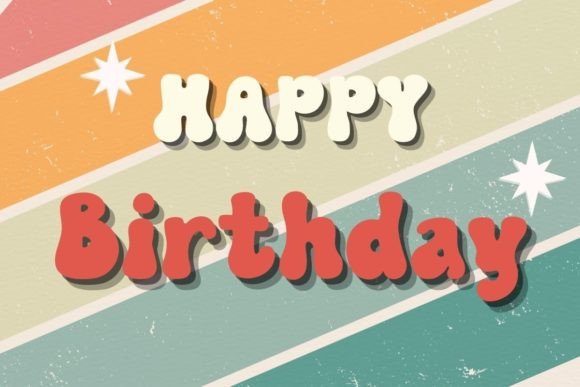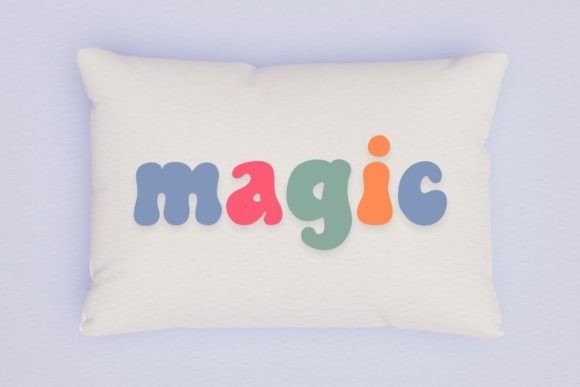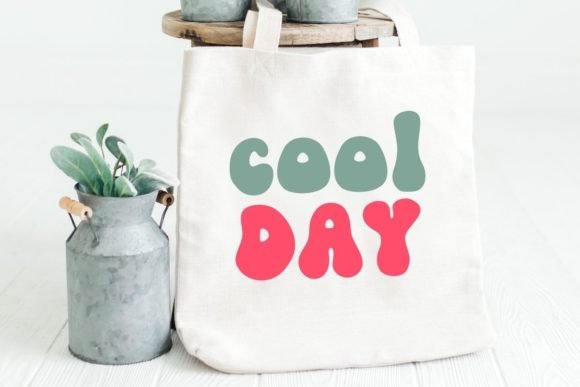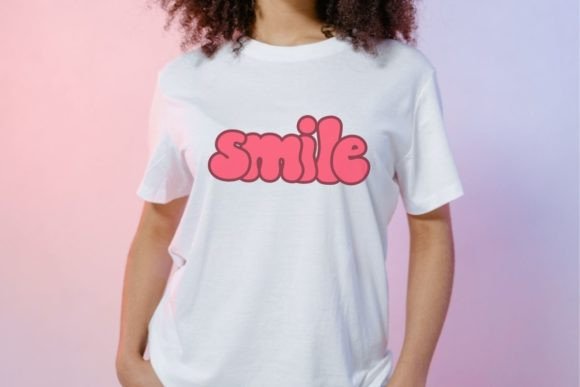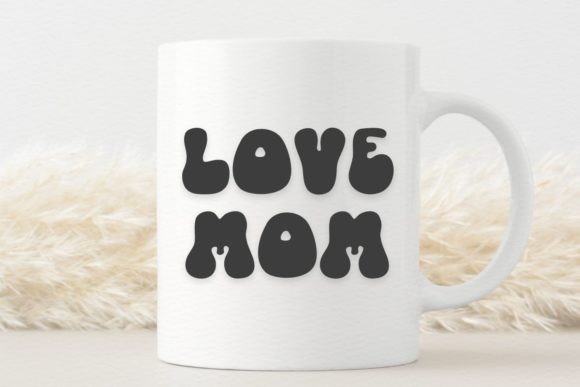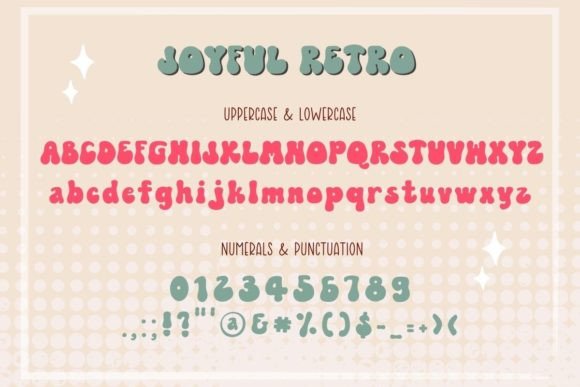
Get Ready to Groove with the Joyful Retro Font!
You know that feeling when you’re brainstorming ideas for a new design project and suddenly, the perfect font pops into your mind? That’s exactly what happens when you discover the Joyful Retro Font. This adorable, retro-inspired font is more than just a style – it’s a mood. It’s a vibe that says, “Hey, let’s have some fun!”
Whether you’re creating banners, social media posts, or even mugs and cards, the Joyful Retro Font is the perfect companion for your design journey. Its playful, carefree spirit will bring a smile to your face and your clients’ faces, making it a valuable addition to any designer’s toolkit. With the Joyful Retro Font, you’ll be able to craft unique, eye-catching designs that truly capture the essence of your brand.
Key Features of Joyful Retro Font
- Font Style: Joyful Retro Font is a unique, hand-drawn font with a retro and playful feel, perfect for creating eye-catching and nostalgic designs.
- Character Set: Includes over 250 characters, including uppercase and lowercase letters, numbers, and special characters, making it suitable for various design applications.
- Unique Characteristics: Features distinctive, hand-crafted details, such as subtle imperfections and irregularities, adding a touch of personality to any design.
Designer Review: Joyful Retro Font
Overall, I think the Joyful Retro Font is a great choice for anyone looking to add a playful touch to their designs. ✨ The font’s nostalgic feel and colorful flair make it perfect for projects that require a lighthearted and whimsical tone.
The font’s versatility is one of its strongest suits. ✨ It can be used for a wide range of applications, from logos and branding to digital products and print materials. The font’s retro aesthetic also lends itself well to designs that need to evoke a sense of nostalgia or timelessness.
- ✨ Nostalgic feel and colorful flair
- ✨ Versatile and suitable for a wide range of applications
- ✨ Easy to read and understand
- ⚠️ May not be suitable for formal or professional designs
- ⚠️ Can be overwhelming or distracting if used in excess
- ⚠️ May not be suitable for designs that require a modern or sleek aesthetic
In conclusion, the Joyful Retro Font is a fun and engaging font that can add a lot of personality to your designs. While it may have some limitations, it’s definitely worth considering for projects that require a playful and nostalgic touch.
The Joyful Retro Font is ideal for designs that require a playful and nostalgic touch. Some common use cases include:
- Designing posters and flyers for events and promotions
- Creating social media graphics and advertisements
- Developing branding and logo designs
- Designing invitations and party materials